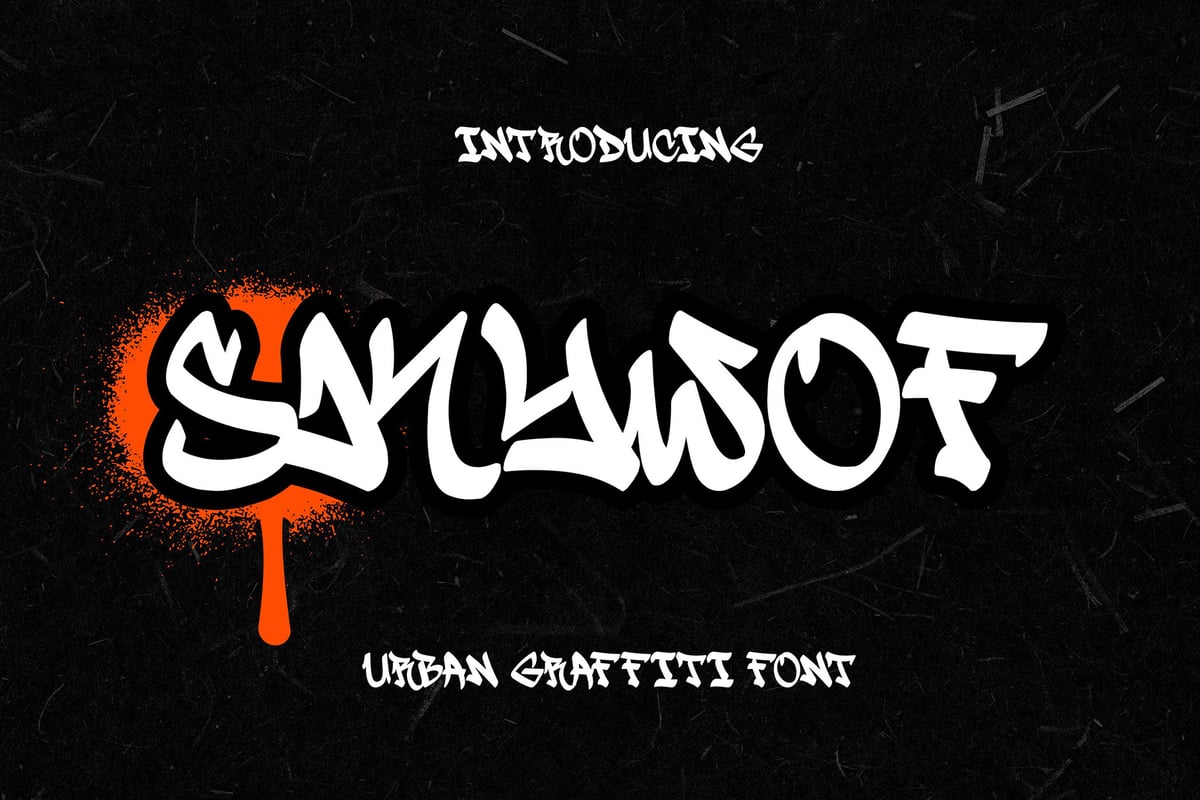
Skywof
Skywof is an urban graffiti font that brings street art's raw energy and rebellious spirit to your designs. With its bold strokes and dynamic flow, Skywof is perfect for projects that demand attention and make a statement.